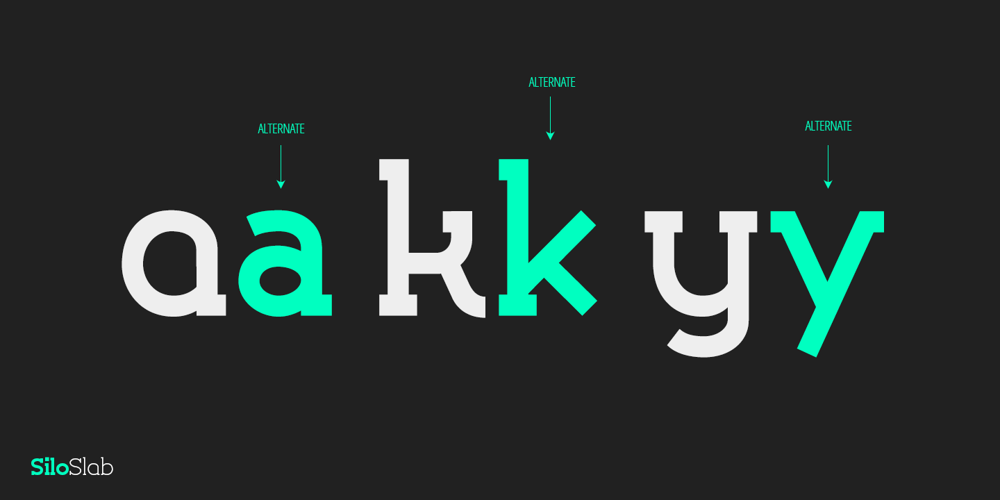
Silo Slab Font Family was designed by published by TypeUnion. Silo Slab contains 12 styles and family package options. Designed and built in London by TypeUnion, Silo Slab is a fluid slab serif typeface embodying energetic curves and a clean, functional structure. The Silo Slab Family is made up of 6 weights, which range from a delicate Extra-Light, all the way through to a punchy, loud Extra-bold and each carry a versatility for multiple applications and uses. Each weight has a matching italic. Silo Slab features open type alternate characters, and extensive language support to provide a flexible, substantial user experience.